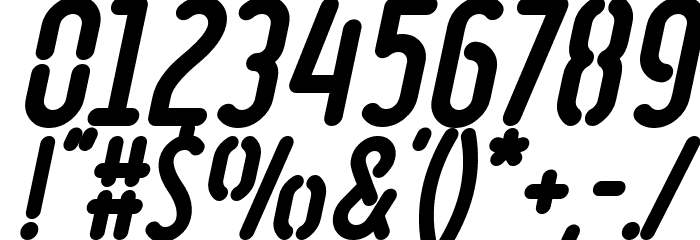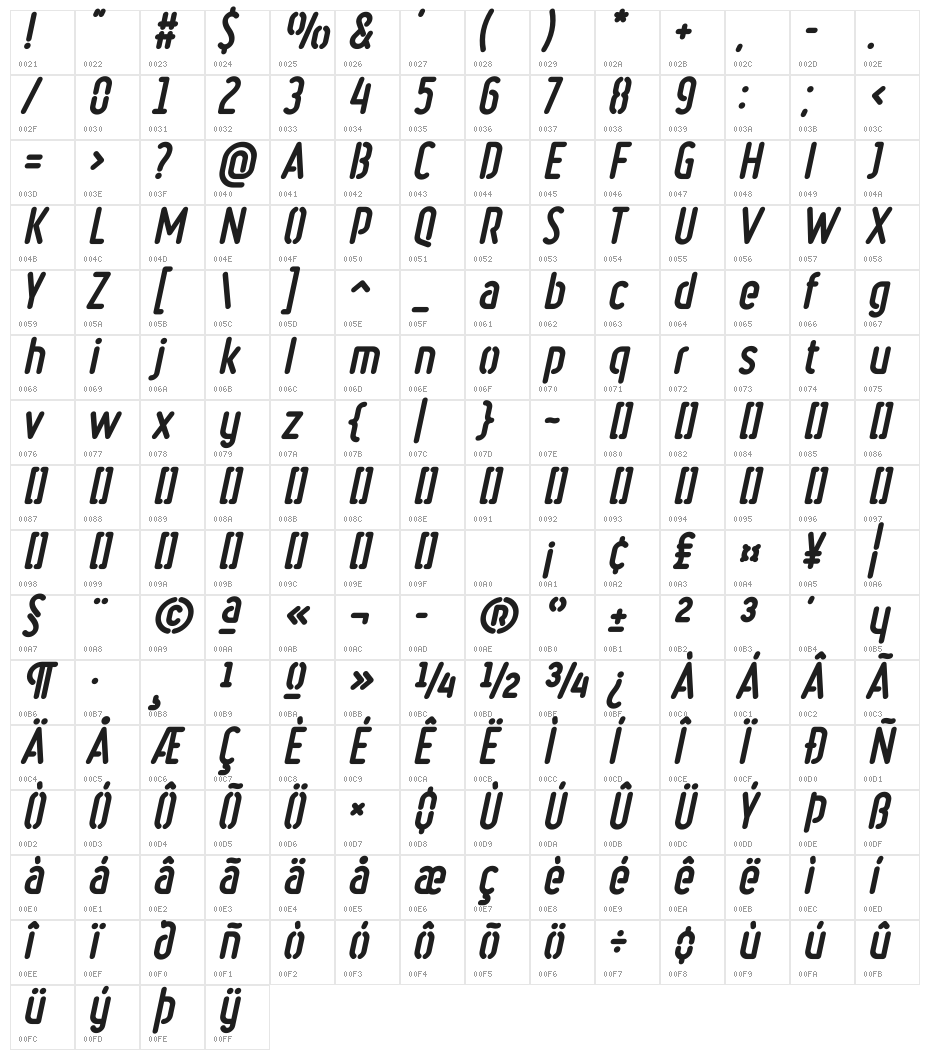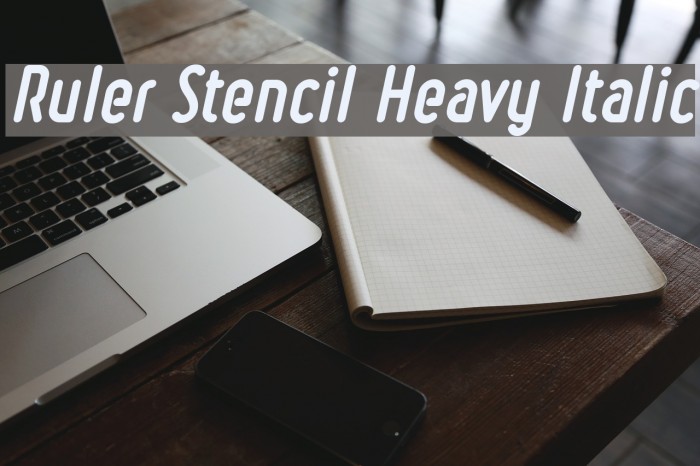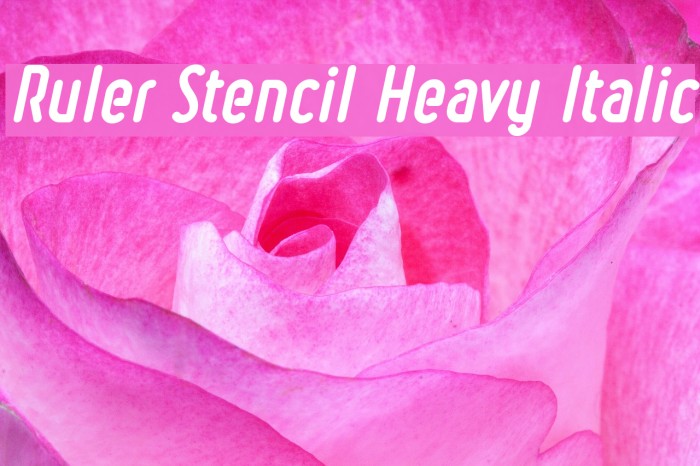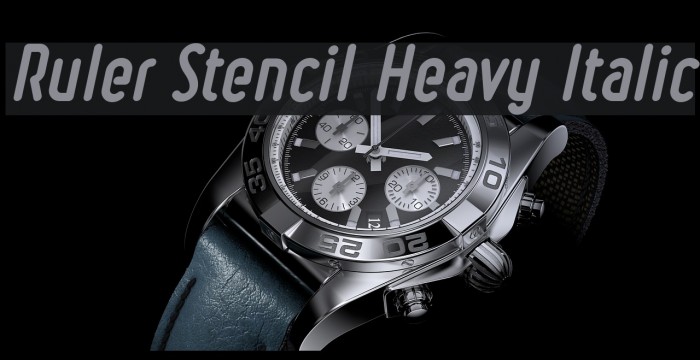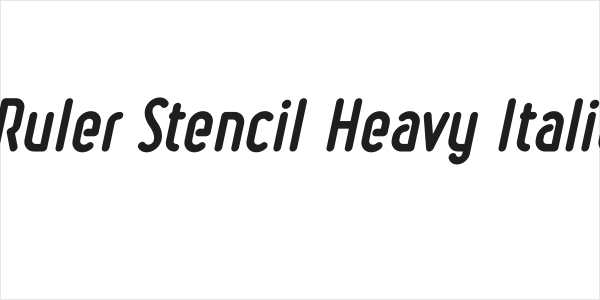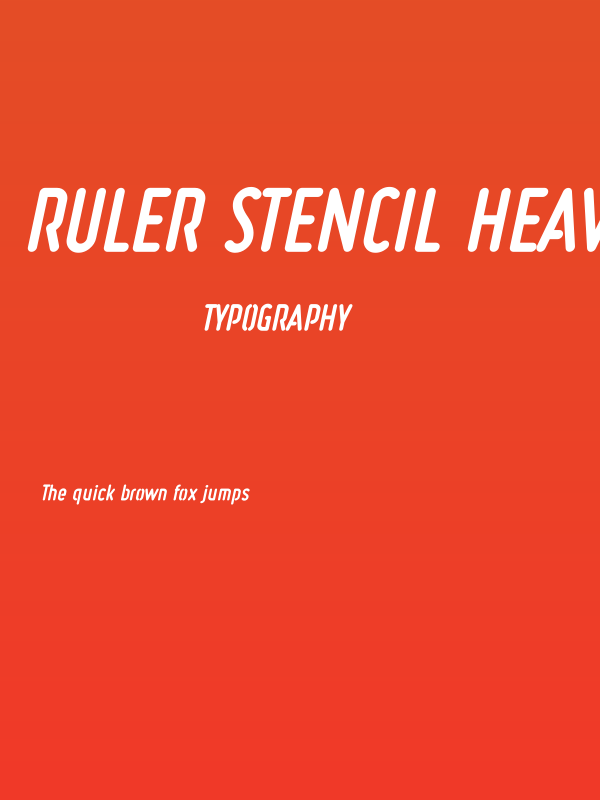
Ruler Stencil Heavy Italic Font
Ruler Stencil Heavy Italic Description
This font features a bold and dynamic stencil style with heavy italicization, giving it a strong and impactful presence. The characters are designed with a consistent thickness, providing a uniform look across both uppercase and lowercase letters. The stencil gaps add a unique touch, making it ideal for designs that require a modern and industrial feel. The numerals and special characters maintain the same bold and italicized style, ensuring cohesion throughout the typeface. Its distinct appearance makes it suitable for attention-grabbing headlines and creative projects.
| Proposed Projects | Ideal for branding, posters, signage, and any project needing a bold, industrial aesthetic. |